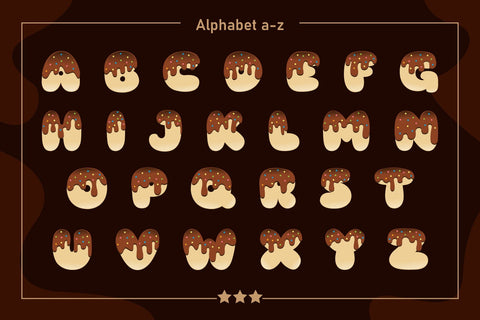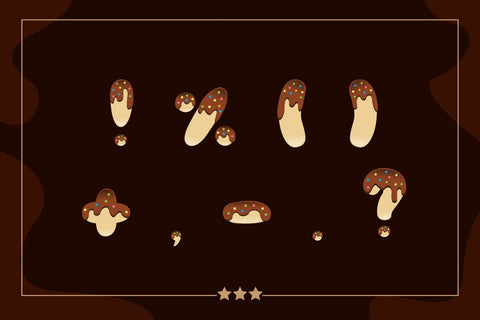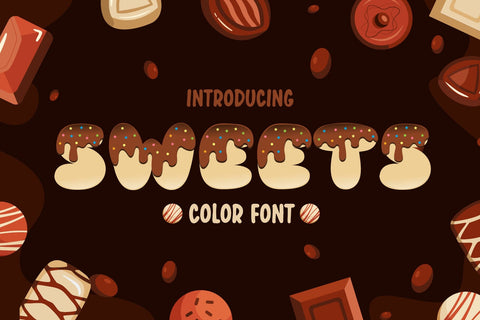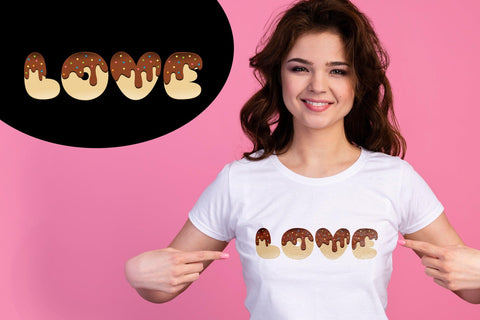
Sweets Color Fonts
Sweets Font is a color font designed in Chocolate flavored snack style. that is brilliant, fun, and cute, suitable for use in any topic that makes them stand out. Fall in love with its authentic feel and use it to create gorgeous invitations, beautiful stationary art, eye-catching social media posts, and cute greeting cards. Add this beautiful display font to each of your creative ideas, and notice how it makes them stand out.